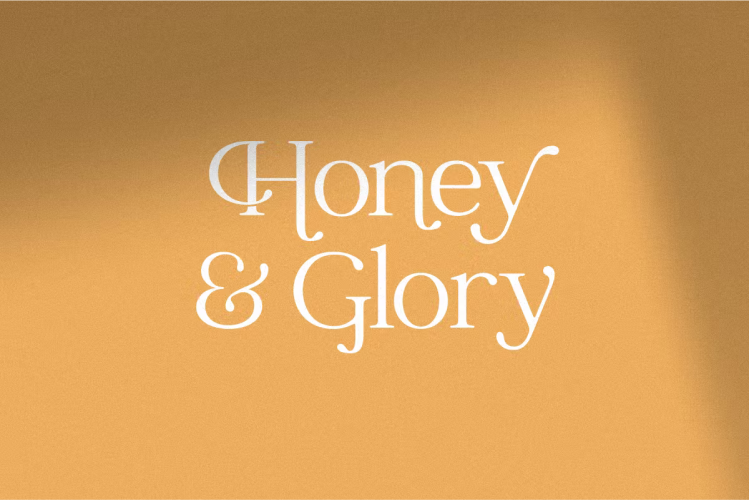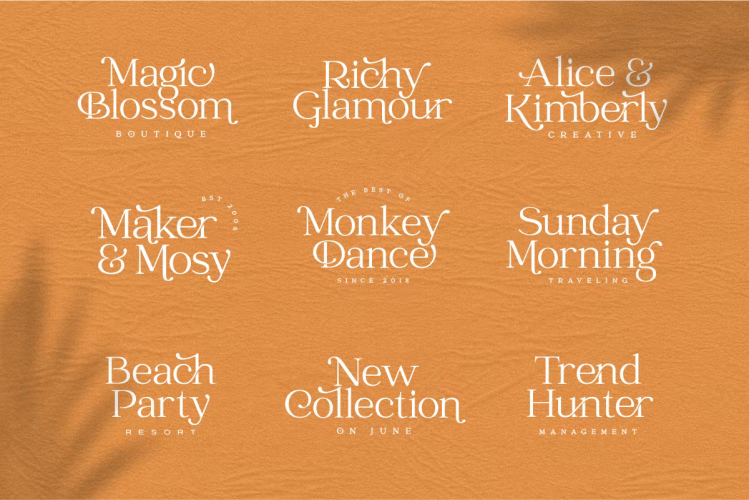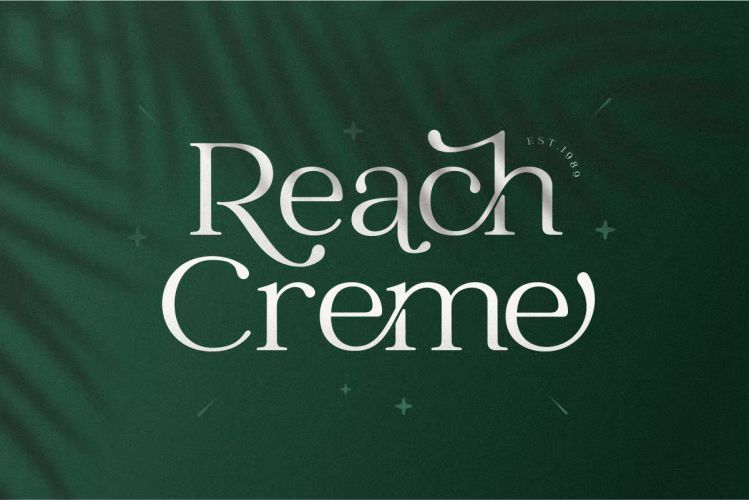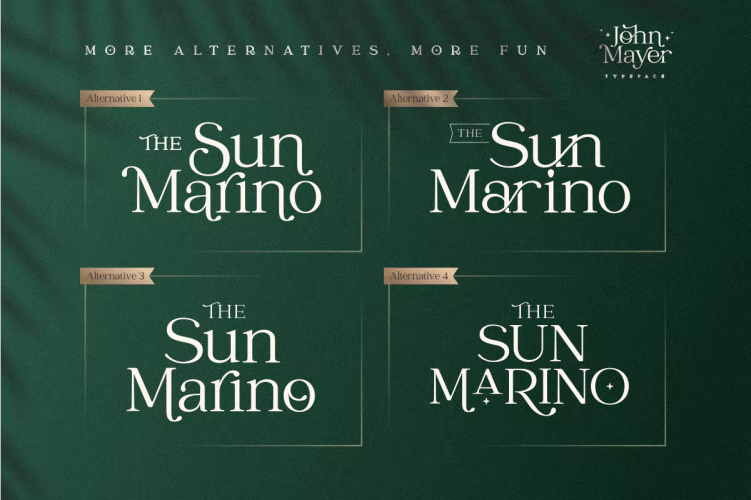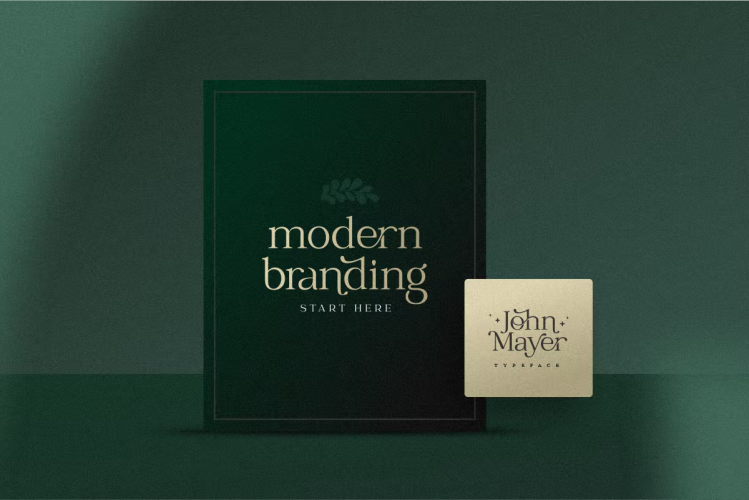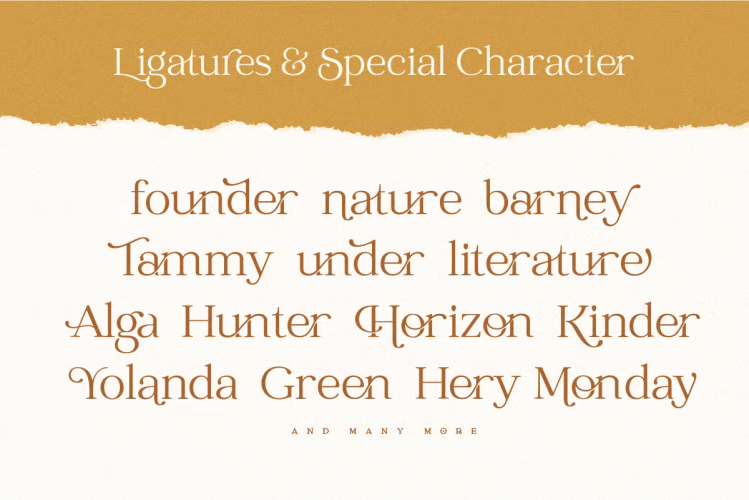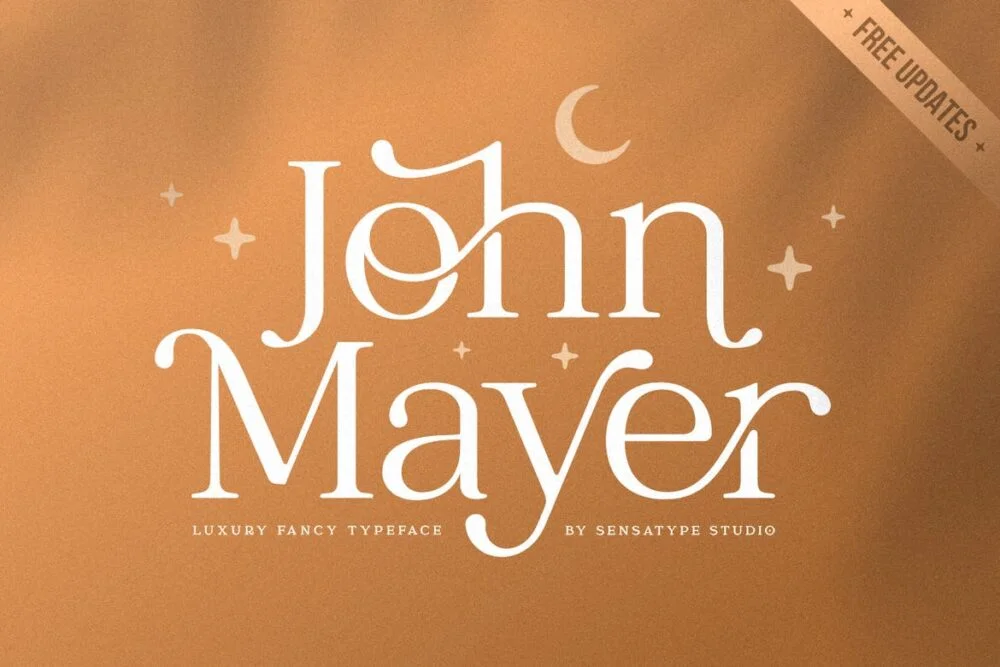
John Mayer Font
John Mayer Font is a unique and very elegant font for brand and logo design. Based on our experience as graphic designer who works for a lot of companies, we often are requested to design a logo in a unique style but with an elegant shape. So, we try to brainstorm and create this font to make the idea is going out. This is perfect for BRANDING and LOGO DESIGN. You will get classy, elegant, and certainly unique logos with this font.
Event & seasonal design
John Mayer Font suits themed posters, holiday campaigns, festival identities and party invitations.
Game & entertainment titles
Decorative letterforms are a natural fit for game logos, movie-style titles and merch.
Packaging accents
Use John Mayer Font sparingly for product names or flavour labels that need personality.